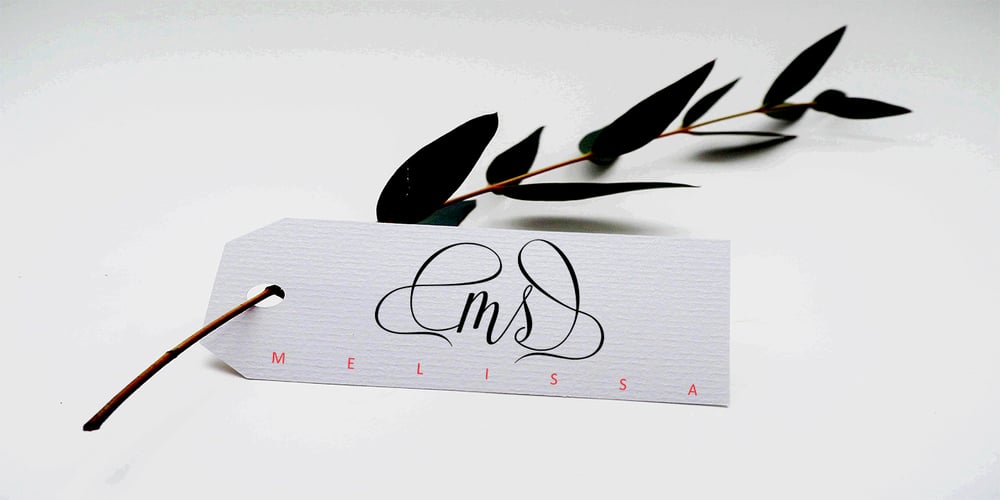
Bayttrun Font Family was designed by Saiful and published by Encolab. Bayttrun contains 1 styles and family package options. Bayttrun is a modern script font with a smooth base line, trendy and feminine style. This font fits on T-shirts, thank you cards, quotes, greeting cards, logos, business cards and more. Perfect for use in ink or watercolors. Includes initial letters and terminals, alternatives and multiple language support. File includes: Bayttrun Script.OTF To enable OpenType Stylistic alternates, you need a program that supports OpenType features such as Adobe Illustrator CS, Adobe Indesign & CorelDraw X6-X7, Microsoft Word 2010 or newer versions. There are additional ways to access alternatives / swash, using Character Map (Windows), Nexus Fonts (Windows), Font Books (Mac) or software programs like PopChar (for Windows and Mac). How to access all alternative characters: https://www.youtube.com/watch?v=Go9vacoYmBw https://www.youtube.com/watch?v=XzwjMkbB-wQ https://www.youtube.com/watch?v=x1A_ilsBsGs https://www.youtube.com/watch?v=xFlMwARHusY